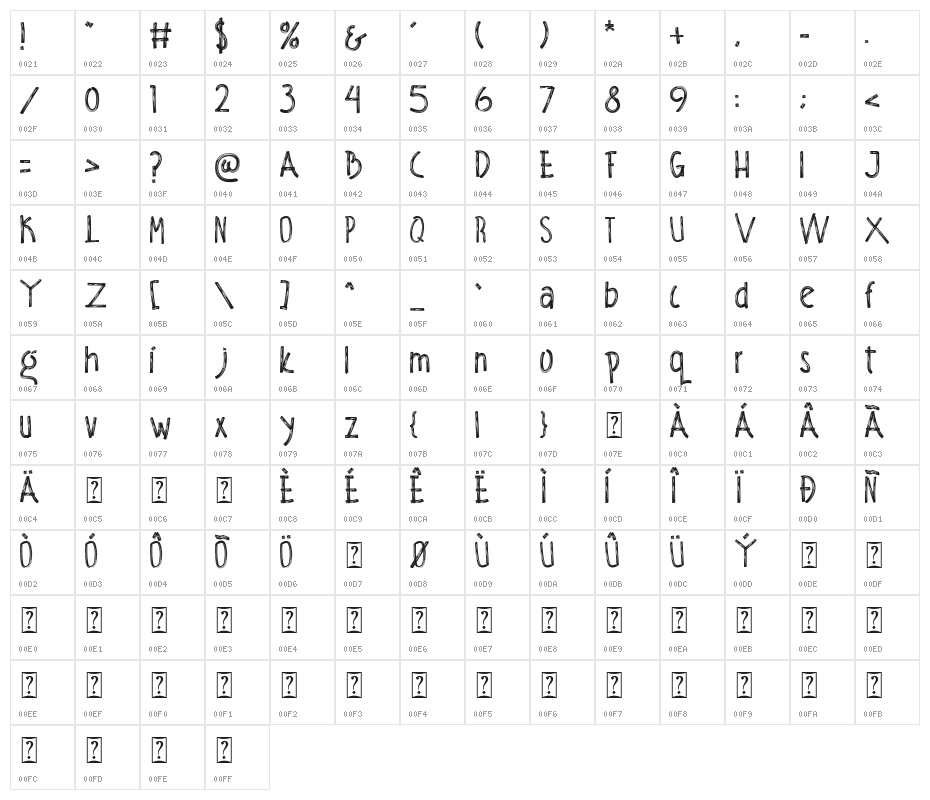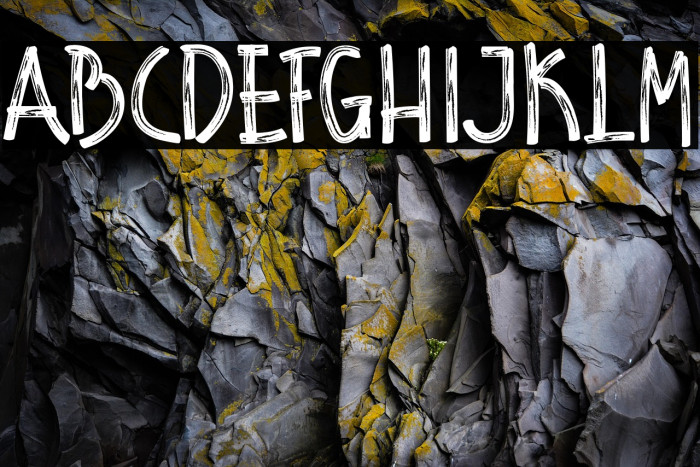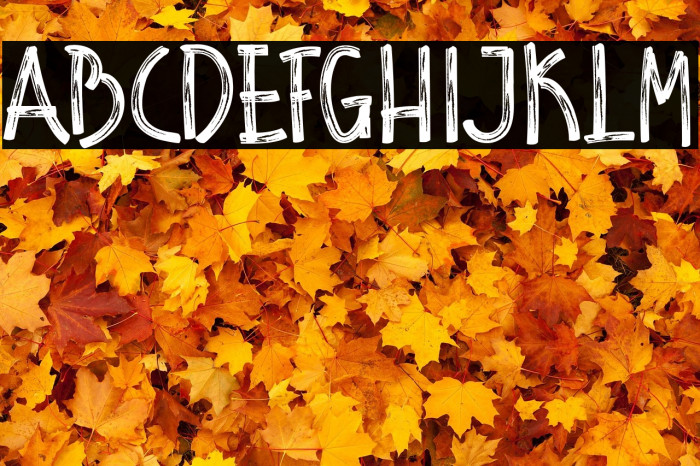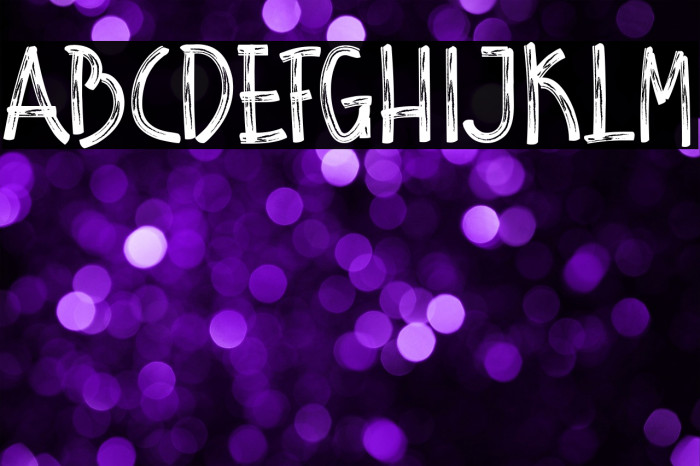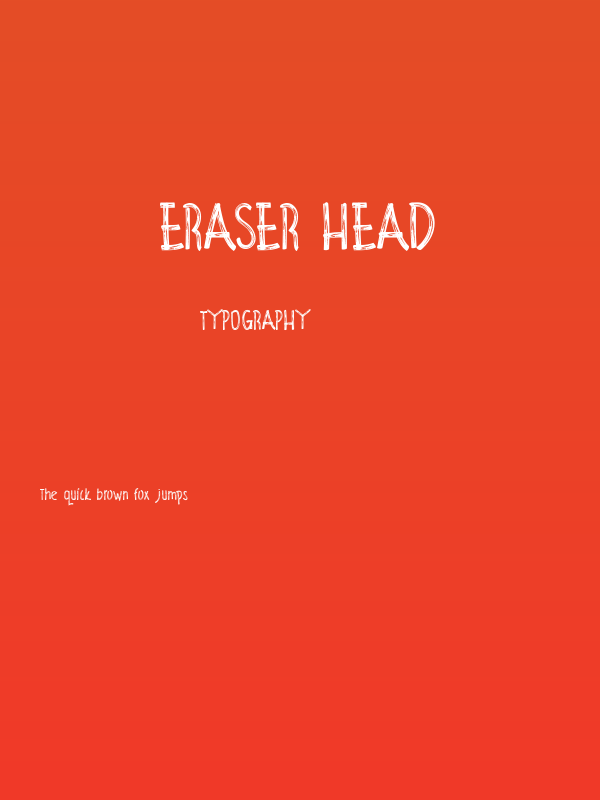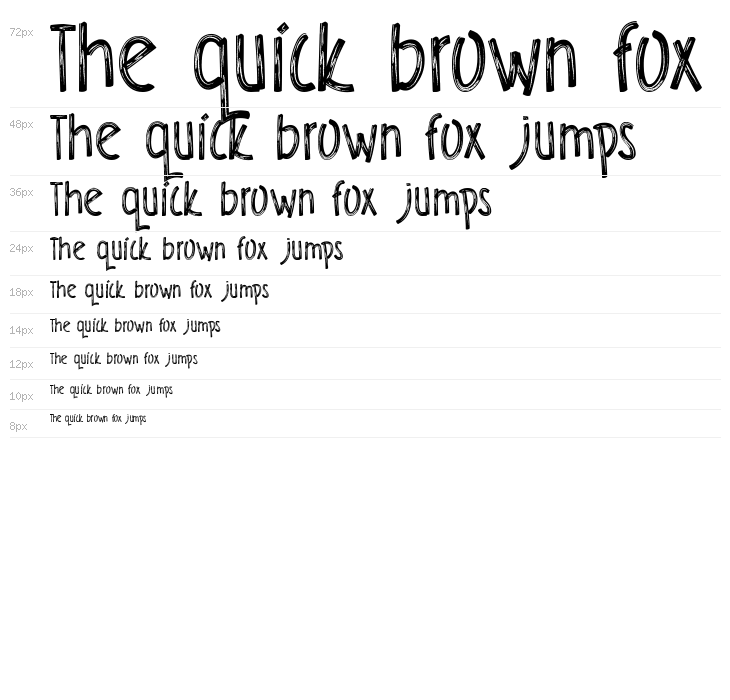
Eraser Head Font
Eraser Head Description
This font features a playful and artistic style, characterized by its hand-drawn appearance. The letters have a rough, sketch-like quality, with uneven strokes that give it a dynamic and energetic feel. The uppercase and lowercase letters maintain a consistent style, with a slightly irregular form that adds to its charm. Numbers and special characters follow the same aesthetic, ensuring a cohesive look across all elements. This font's unique personality makes it stand out, perfect for projects that require a touch of creativity and individuality.
| Use Case | Logos, Posters, Creative projects |
| Proposed Projects | Ideal for creative projects such as posters, children's books, artistic branding, and playful invitations. |